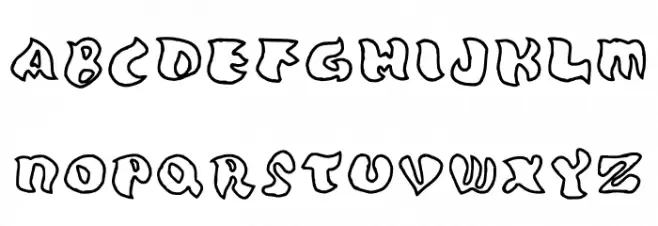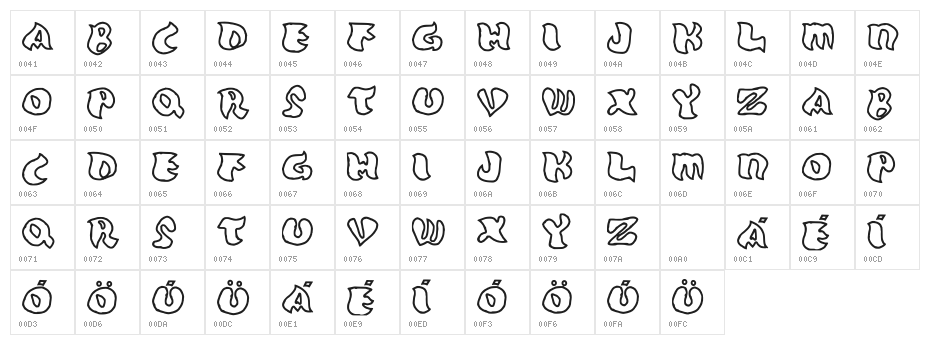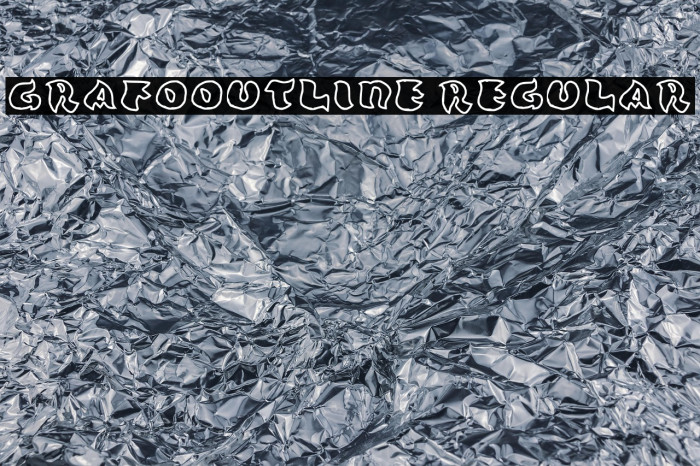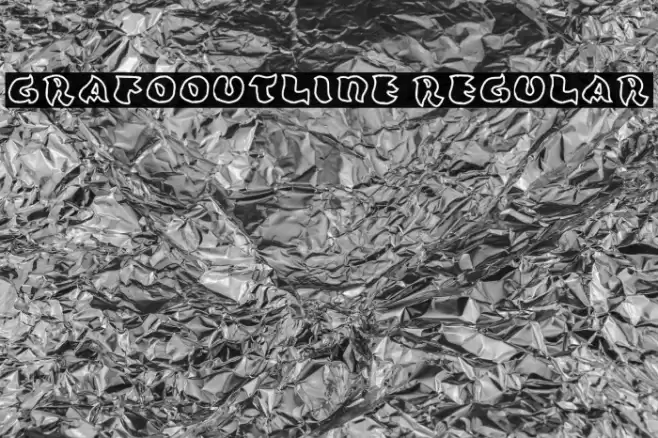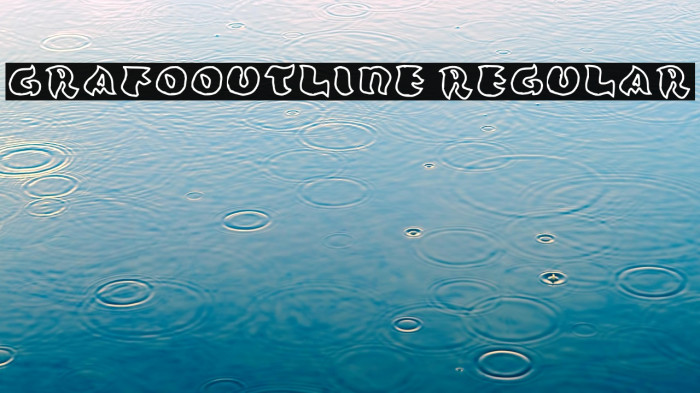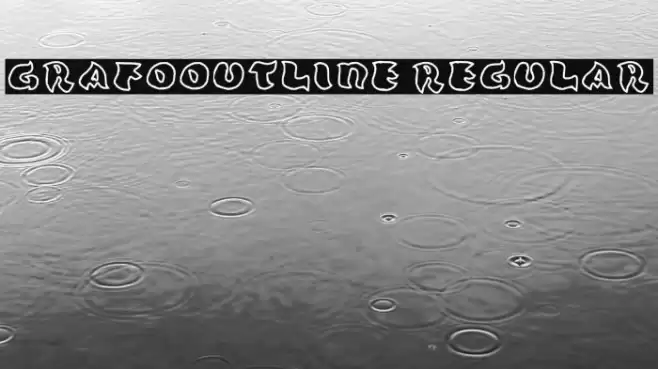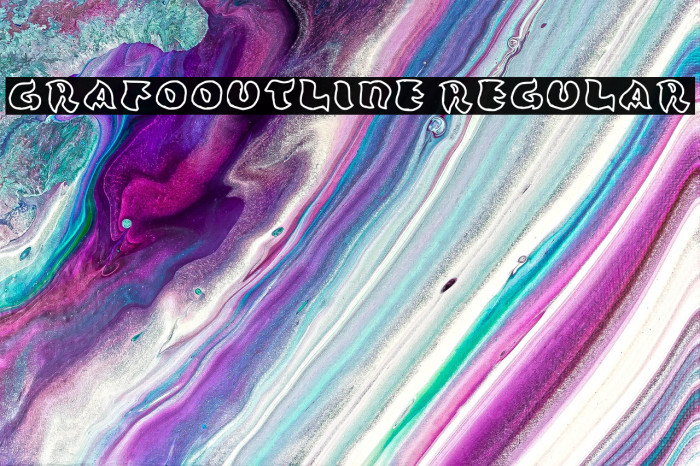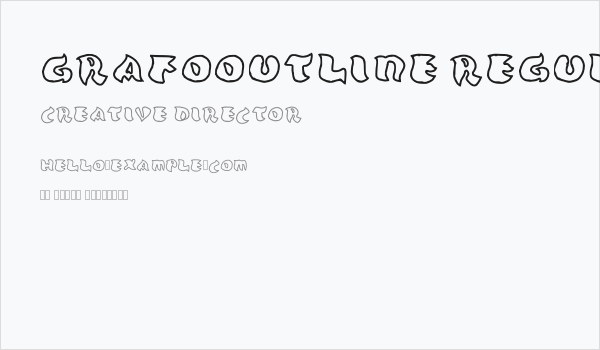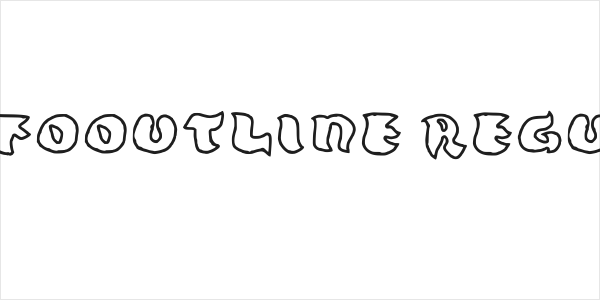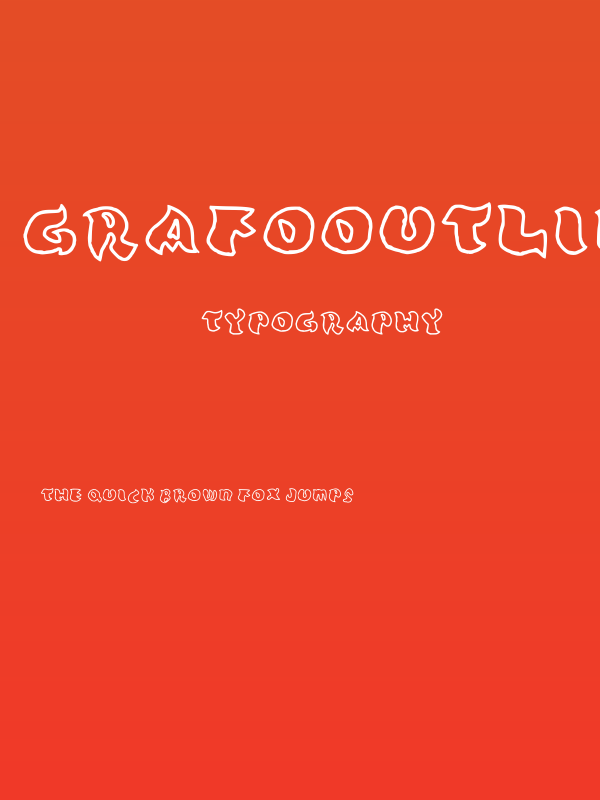
Grafooutline Regular Font
Grafooutline Regular Description
This font features a playful and artistic outline style, with each character appearing as if it has been hand-drawn with a bold marker. The letters have a whimsical, cartoon-like quality, with irregular, wavy lines that give them a dynamic and lively appearance. The font maintains a consistent thickness throughout, creating a uniform look despite its freeform style. It is highly legible and stands out due to its unique outline design, making it suitable for creative and informal applications.
| Proposed Projects | Ideal for children's books, comic strips, playful branding, and creative posters. |